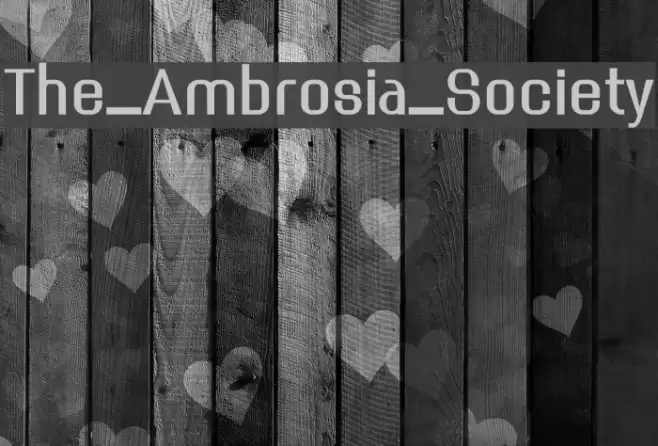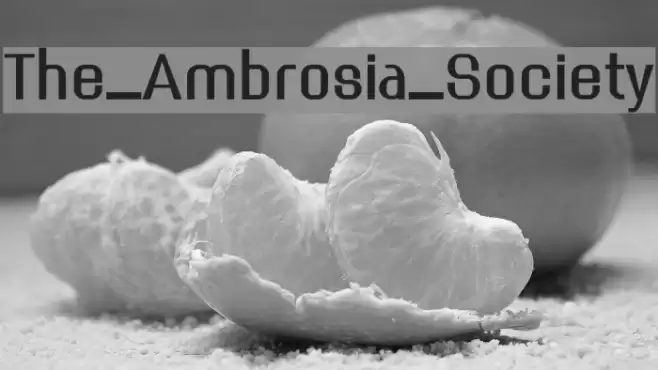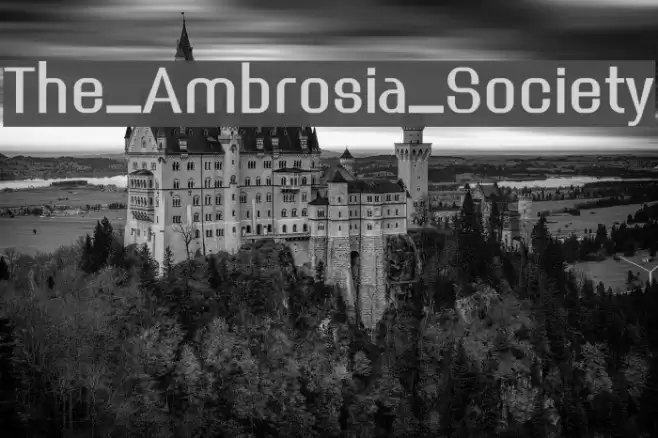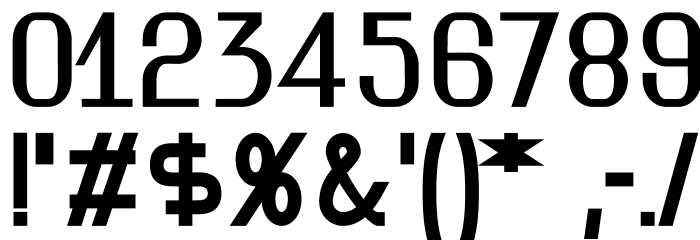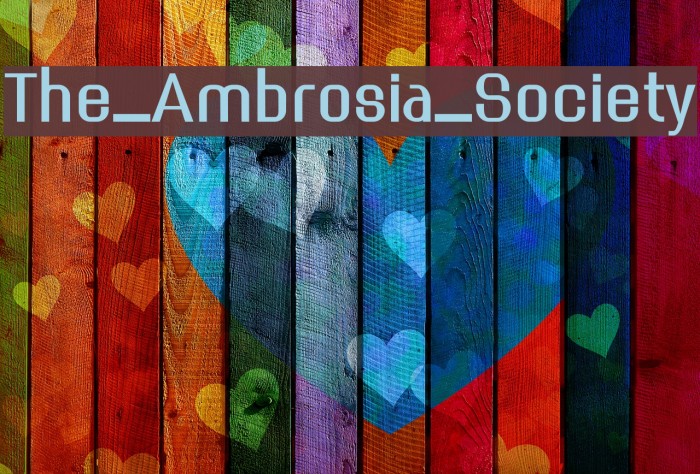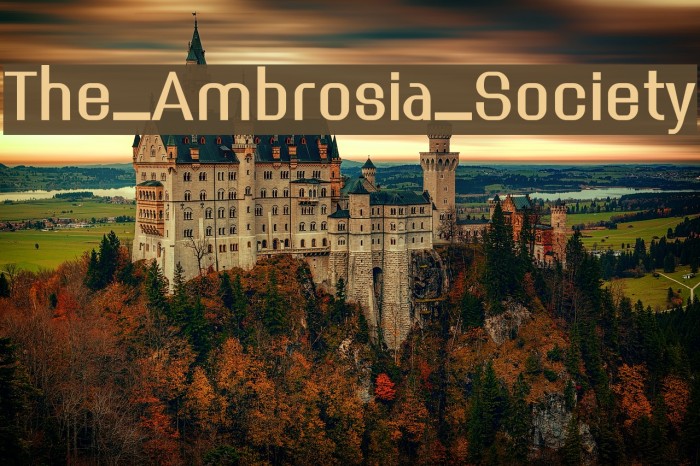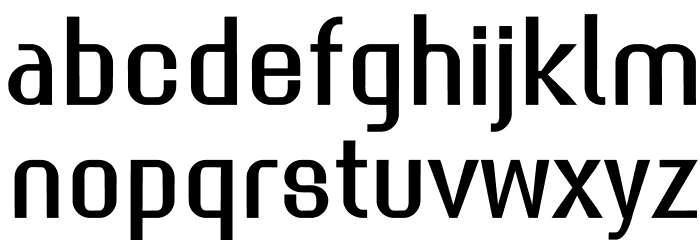
The_Ambrosia_Society Font
The_Ambrosia_Society Description
This font showcases a modern and clean sans-serif style, characterized by its geometric shapes and uniform stroke width. The uppercase letters are bold and assertive, while the lowercase letters maintain a consistent and balanced appearance. The numerals are clear and legible, making them suitable for a variety of applications. Special characters are well-defined, adding versatility to the font. The overall design is sleek and professional, ideal for contemporary projects.
A modern, geometric sans-serif font with uniform strokes and clear characters from Uncategorized fonts.
- Proposed Projects: Ideal for branding, advertising, digital interfaces, and editorial design.
- Use Case: Headlines, Logos, Digital interfaces